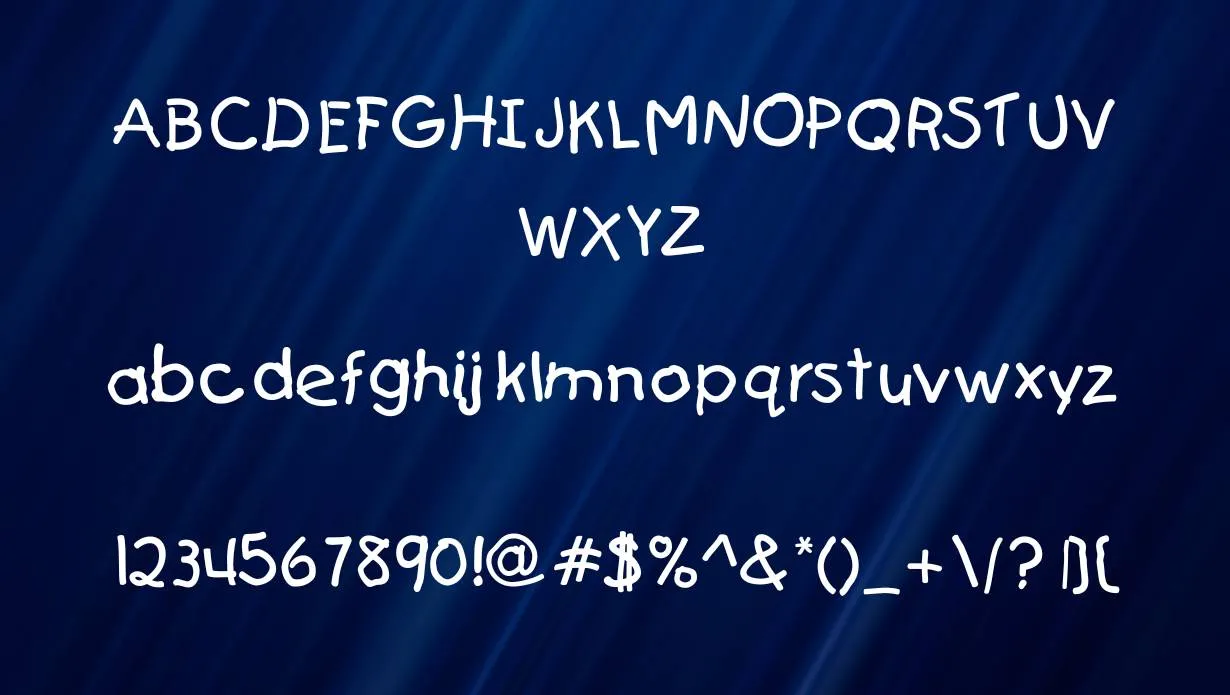
Kids Font is a fun and creative font often used in designs for children, toys, and projects that aim to evoke a sense of playfulness and imagination.
The font’s unique and whimsical style adds an element of joy and personality to your designs.